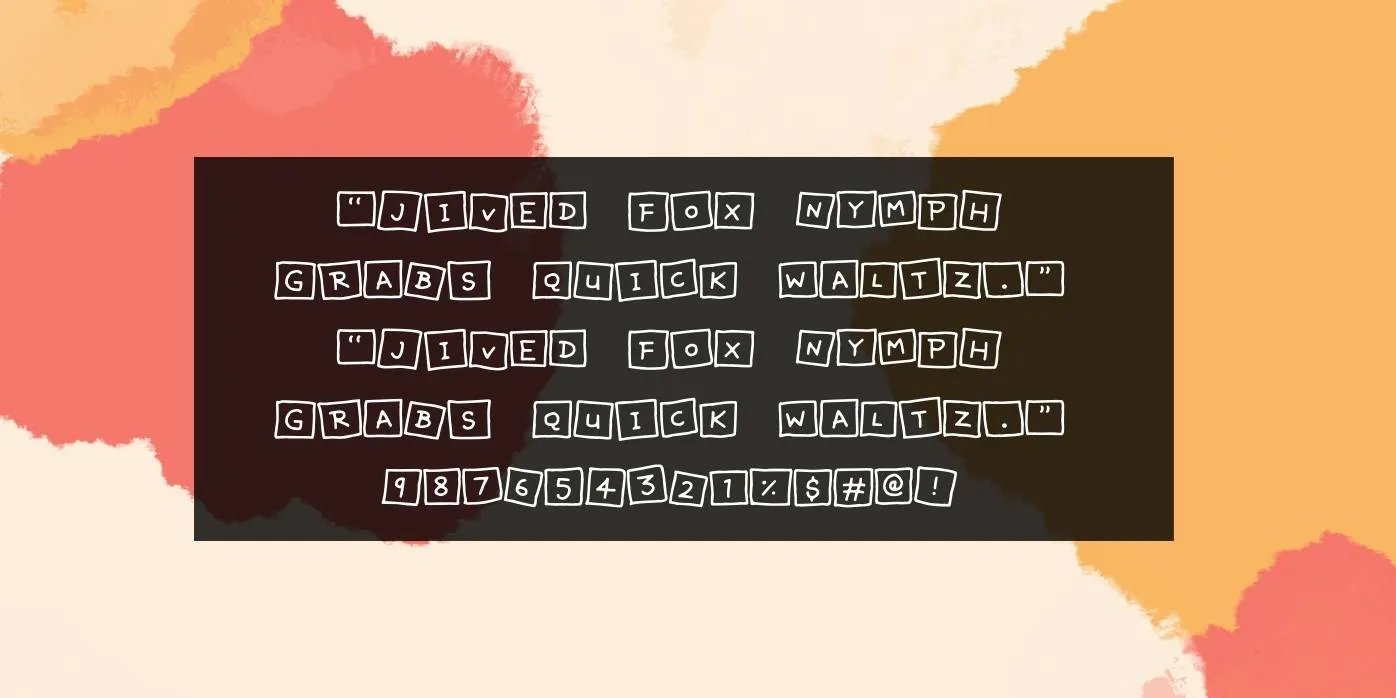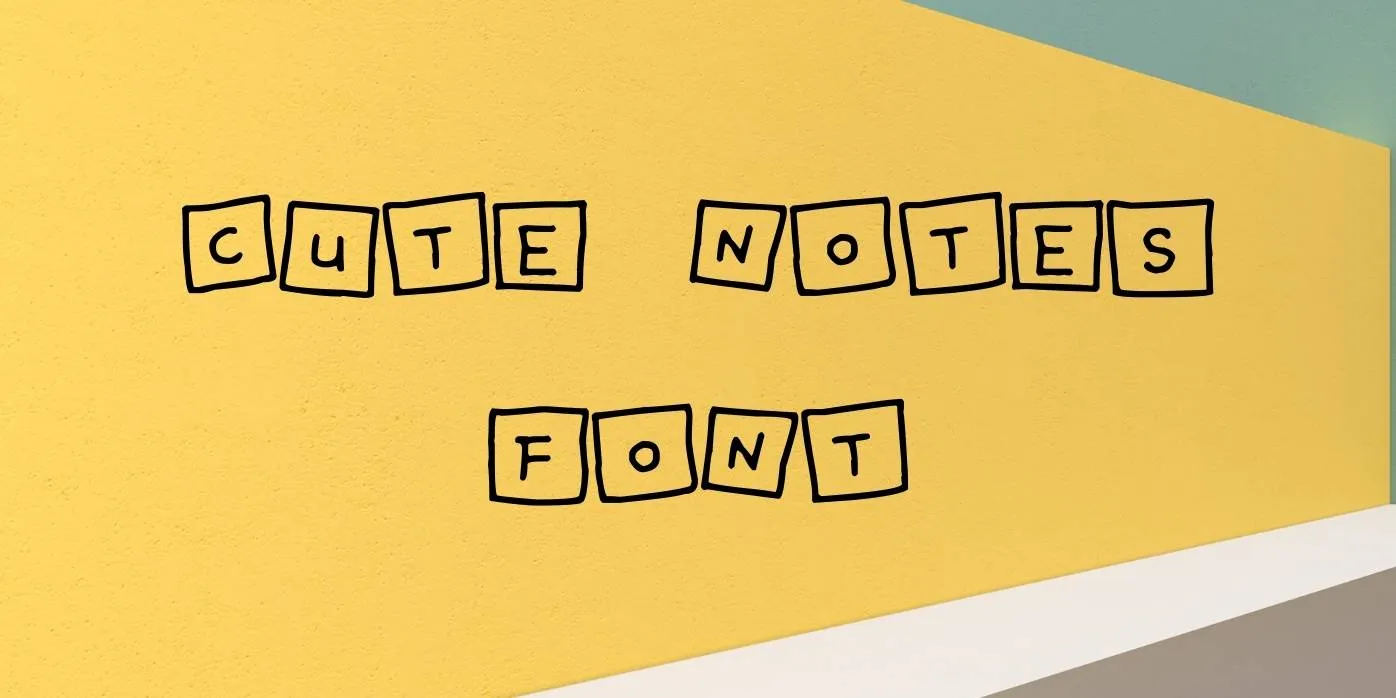
Cute Notes Font
Today, we are going to introduce a very famous typeface known as Cute Notes Font. This family belongs to the fancy typeface. Darrell Flood is the designer of this family. This family is a creative typeface that has been created with the help of a lot of love and care.
The designer has given this family a very warm and cute look. It consists of six different styles. The name Cute Notes comes from the fact that this typeface was inspired by the notes that we used to write our articles. The main aim of the designer was to create a typeface that would represent the feeling of attractive look designs.